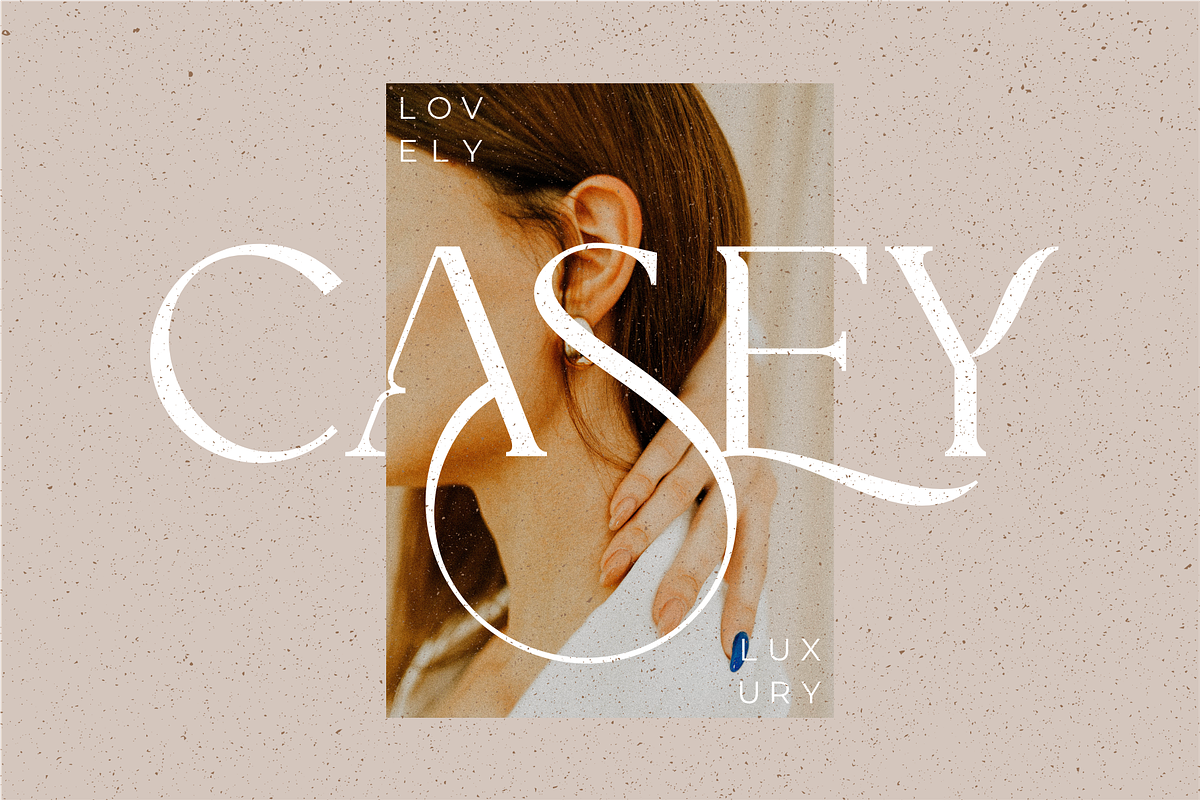
Casey Luxury Editorial Typeface Free Download is a refined and sophisticated font designed for high-end editorial design. With its elegant serifs, sharp lines, and perfectly balanced letterforms, this font is ideal for creating luxury branding, magazines, high-end websites, logos, and other premium projects that require a polished, professional touch.
The modern yet timeless design of Casey ensures your text stands out with style and clarity, whether you're designing for fashion, luxury products, or upscale events. Its versatility makes it suitable for both large headings and smaller body text, adding class to any project.